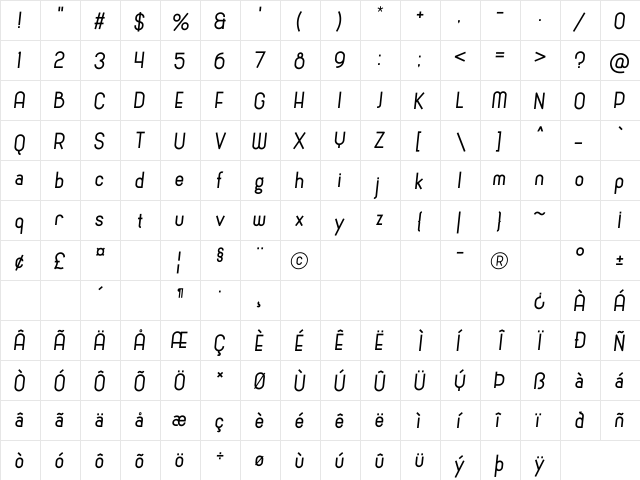
Cronus Italic
Design Context for Cronus Typeface
Cronus offers clean, dependable letterforms without strong stylistic allegiance, making it a practical choice for designers who need flexibility. The dynamic lean of this cut emphasises speed and emphasis in any layout.
Pro Tip: Try Cronus for annotation and caption copy alongside an upright companion — the contrast in angle creates a dynamic but ordered typographic system.